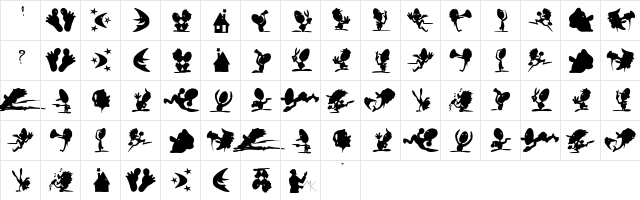
ShadowPlaying Regular
Design Context for ShadowPlaying Typeface
ShadowPlaying brings ornamental detail and strong personality to headlines and identities, where visual impact matters more than quiet functionality.
Font Pairing: Pair with a clean neutral sans-serif for body copy to let ShadowPlaying's character lead without overwhelming the composition.
Pro Tip: Treat ShadowPlaying as the centrepiece of your typographic hierarchy. One strong heading set in a decorative face can carry an entire layout.